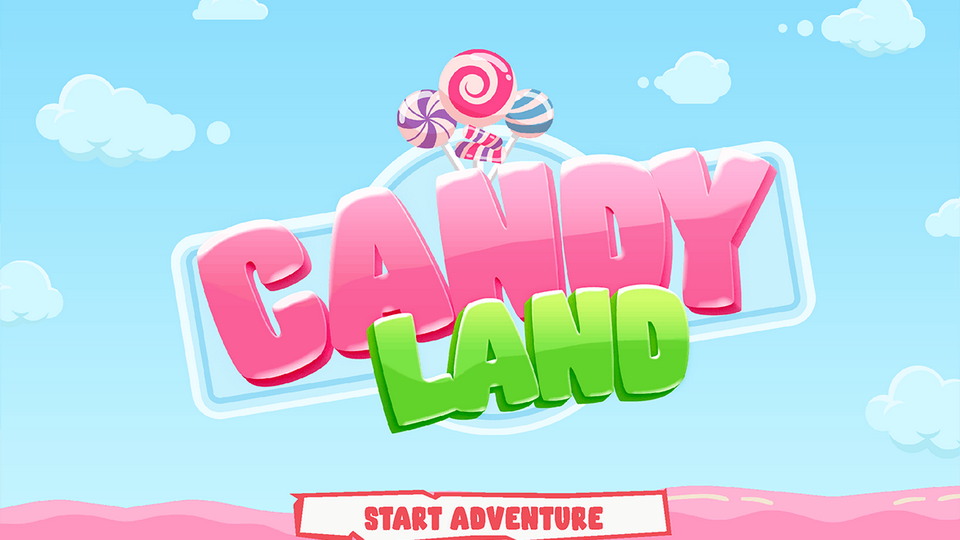
Download Creampuff font, a children typeface. Creampuff is an all caps bubble shape font that emphasizes the joy and adventurous side of our children.